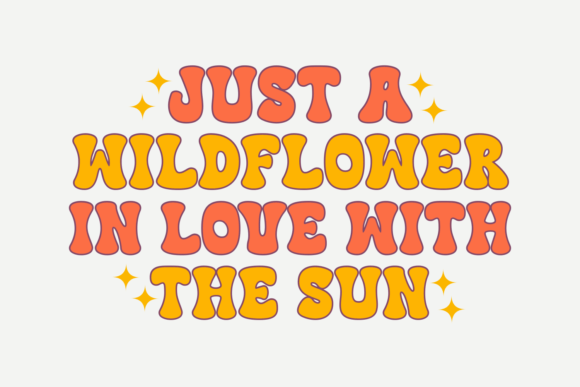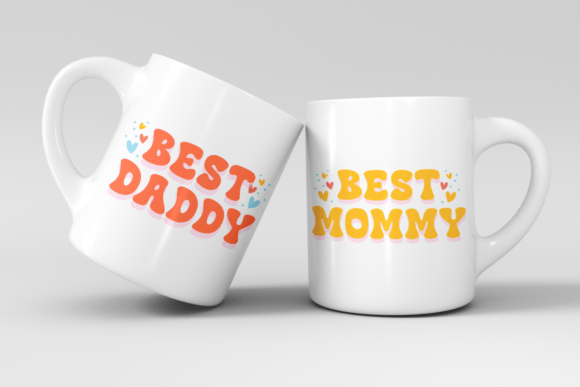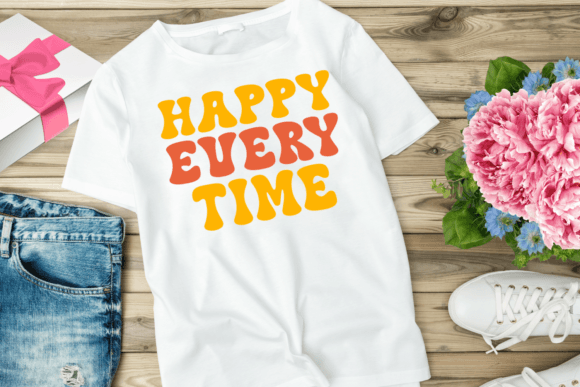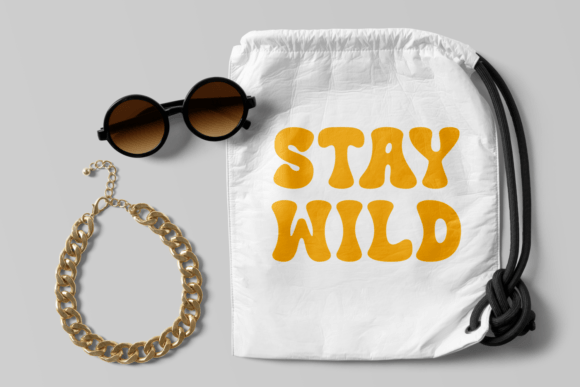
The Perfect Typography to Get You Pumped Up for Your Next Project
There’s nothing quite like the feeling of being completely in the zone, with a great idea and a clear vision for your next creative project. You’re brainstorming ideas, sketching out concepts, and imagining the perfect typography to bring it all together. That’s when you stumble upon the perfect font – and for many designers, that font is the Cheers Today Font.
This beautiful retro-style display font is more than just a pretty face – it’s a nostalgic nod to the groovy days of yesteryear. With its chubby characters and playful feel, the Cheers Today Font is the perfect choice for designers looking to add a touch of joy and whimsy to their projects. Whether you’re creating posters, apparel, invitations, or advertisements, this font is sure to bring a smile to your face and a spark to your design.
Cheers Today Font Key Features
- Unique Characteristics: The Cheers Today Font features a bold, modern design with a touch of nostalgia, making it perfect for creating eye-catching headlines and titles.
- Kerning and Ligatures: The font includes advanced kerning and ligature features, ensuring smooth text rendering and a professional finish in your designs.
Designer Review: Cheers Today Font
Overall, I found the Cheers Today Font to be a pleasant addition to any digital project. ✨ Its friendly and approachable vibe makes it suitable for a wide range of applications, from social media to branding materials.
One of the things that I appreciate about this font is its versatility. ✨ It comes in a range of weights, from light to bold, allowing designers to choose the perfect level of expressiveness for their project. Additionally, the font’s rounded edges and gentle curves make it easy on the eyes, perfect for long blocks of text.
- ⚠️ The font may not be suitable for formal or professional applications, as it can come across as too casual or playful.
- ⚠️ Some users may find the font’s rounded edges and curves to be too simplistic or generic.
Overall, I would give the Cheers Today Font 4 out of 5 stars. While it may not be the most unique or innovative font on the market, it is a solid choice for designers looking for a friendly and approachable typeface. With its versatility and ease of use, I would definitely consider using it in future projects.
Use the Cheers Today Font to create eye-catching headlines and titles.
Experiment with different font sizes and colors to add visual interest.
Combine the font with other design elements to create a unique and engaging visual identity.
The Cheers Today Font is ideal for:
Creating social media graphics and posts.
Designing business cards and marketing materials.
Adding a touch of personality to presentations and documents.